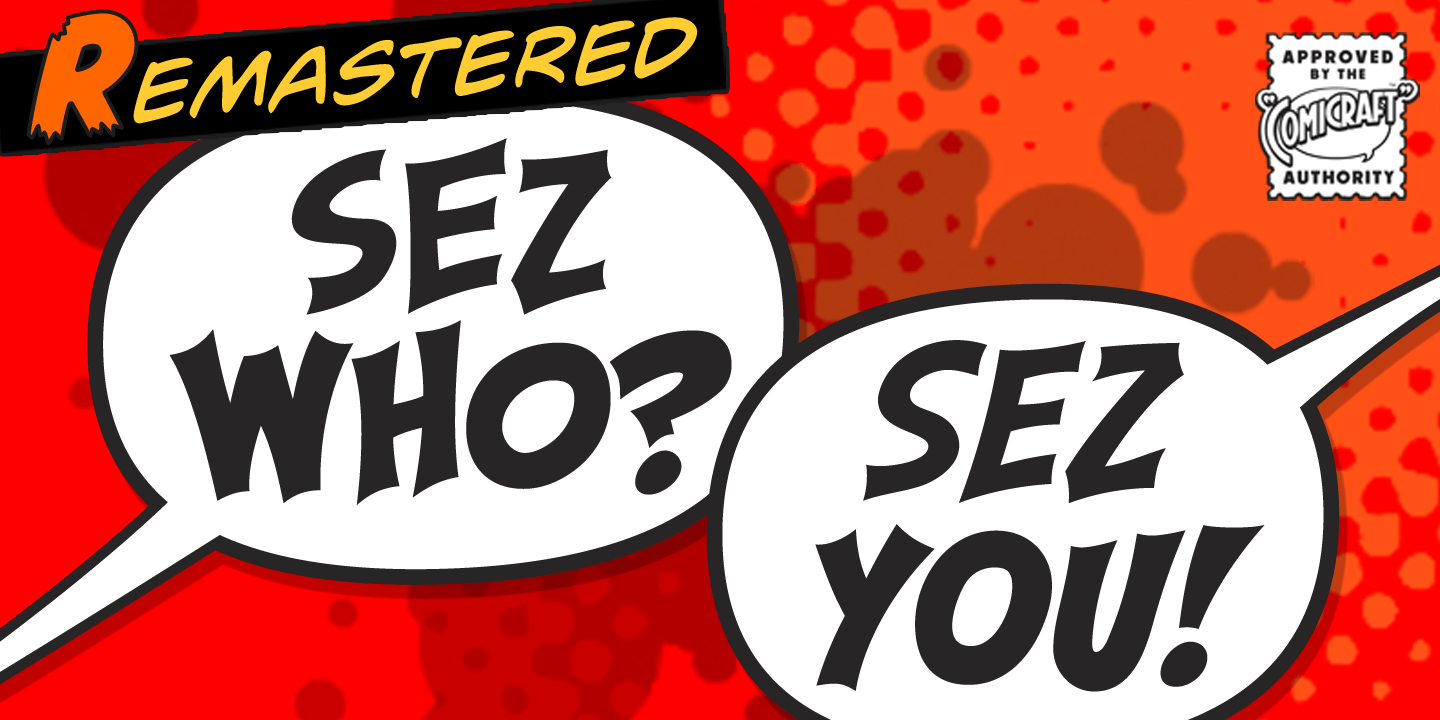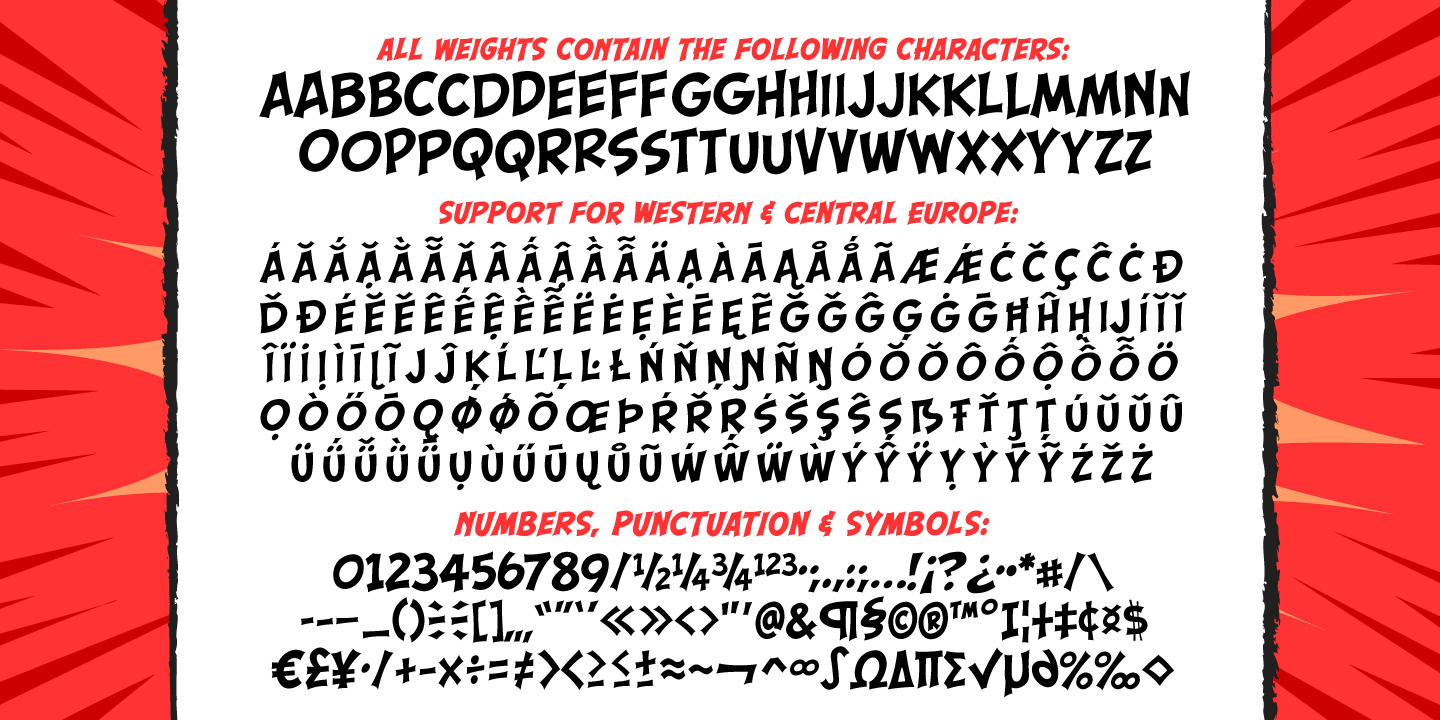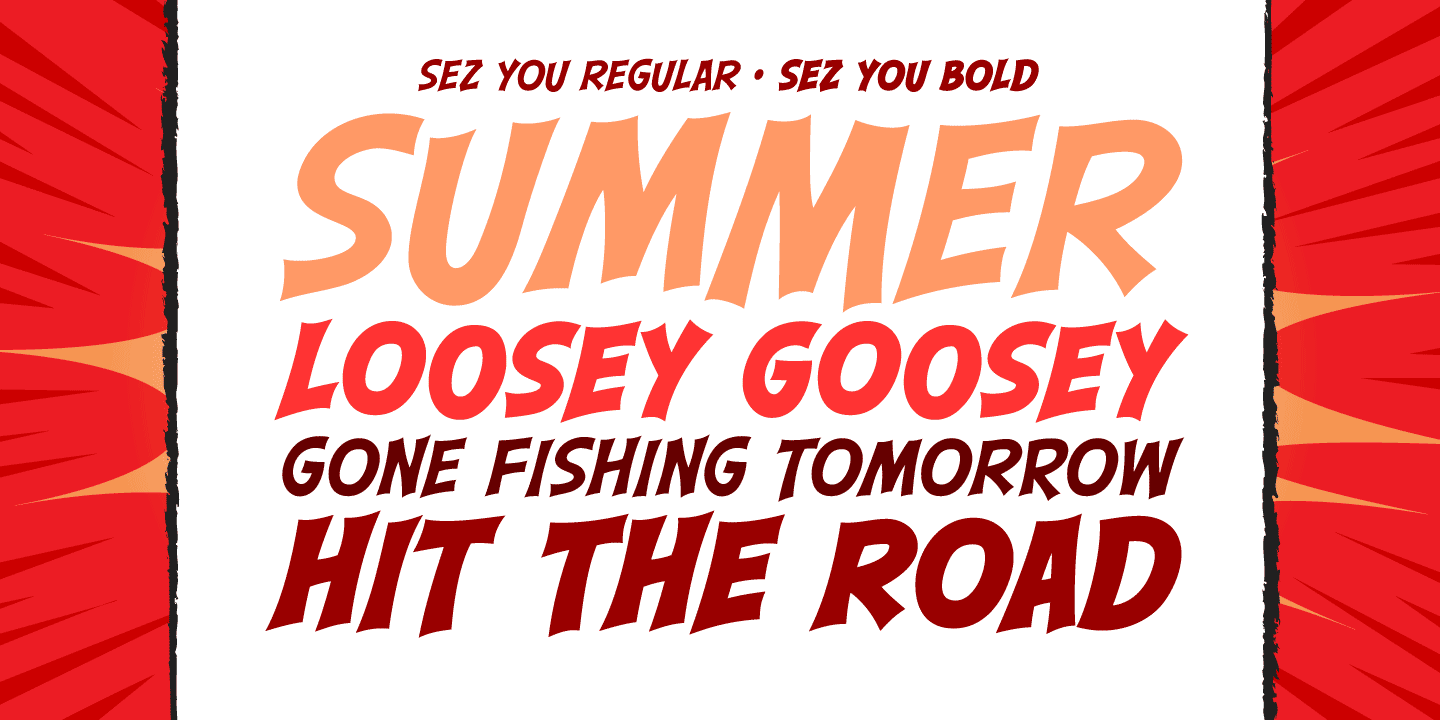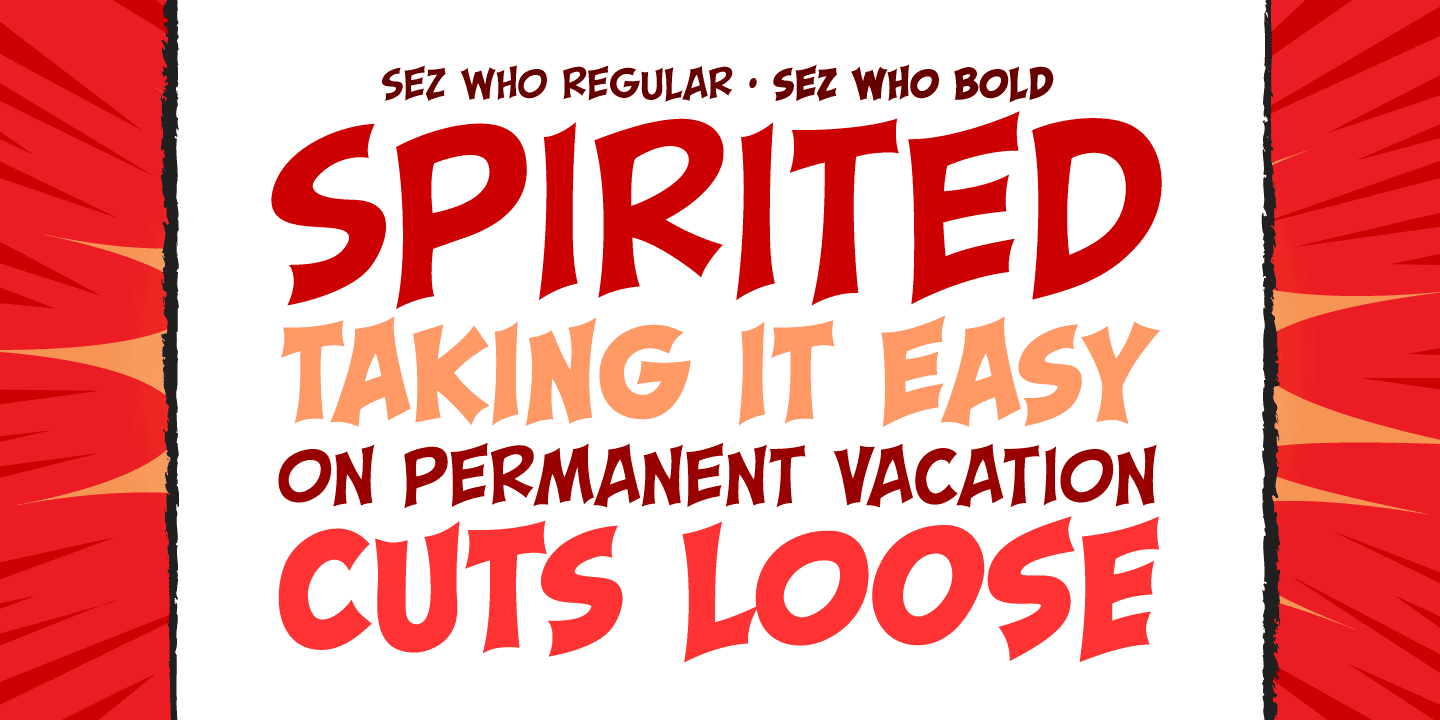
Sez Who Sez You
Font Family by Comicraft Fonts
Hand-crafted by Richard Starkings in the classic style of Will Eisner's The Spirit, this free and easy font made its debut in the pages of...The Spirit! Never let it be said that those awfully nice chaps at Comicraft don't think about what they're doing!